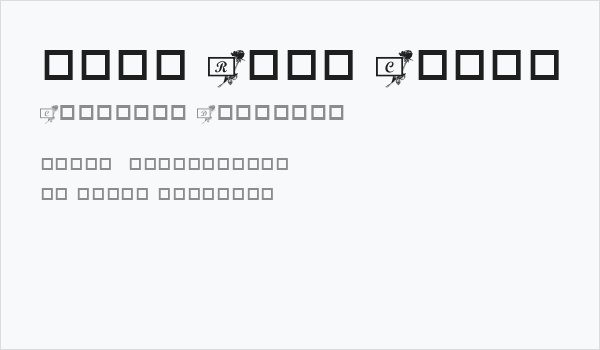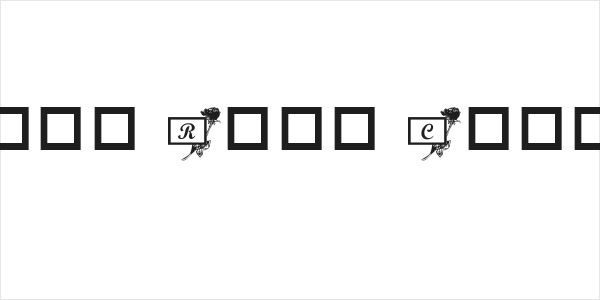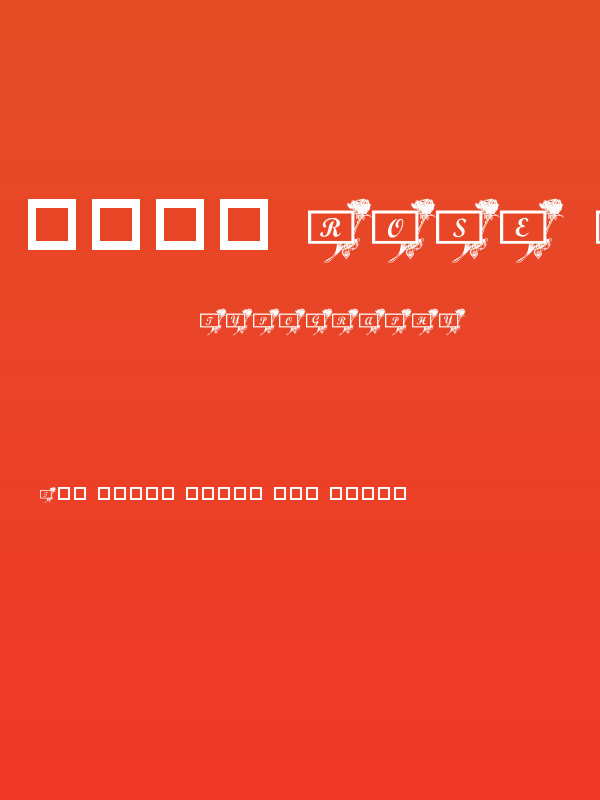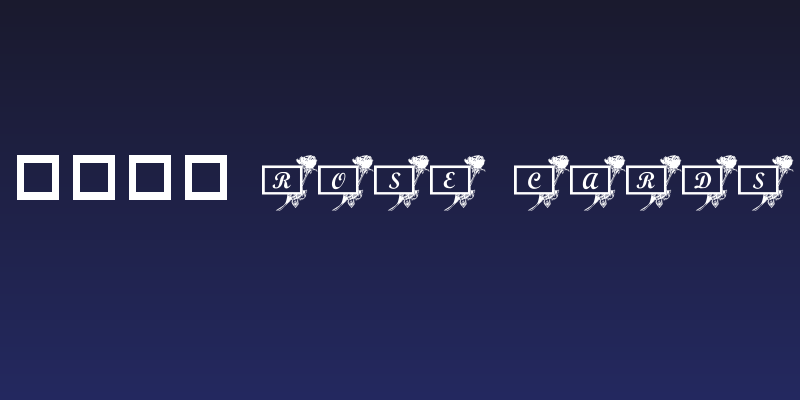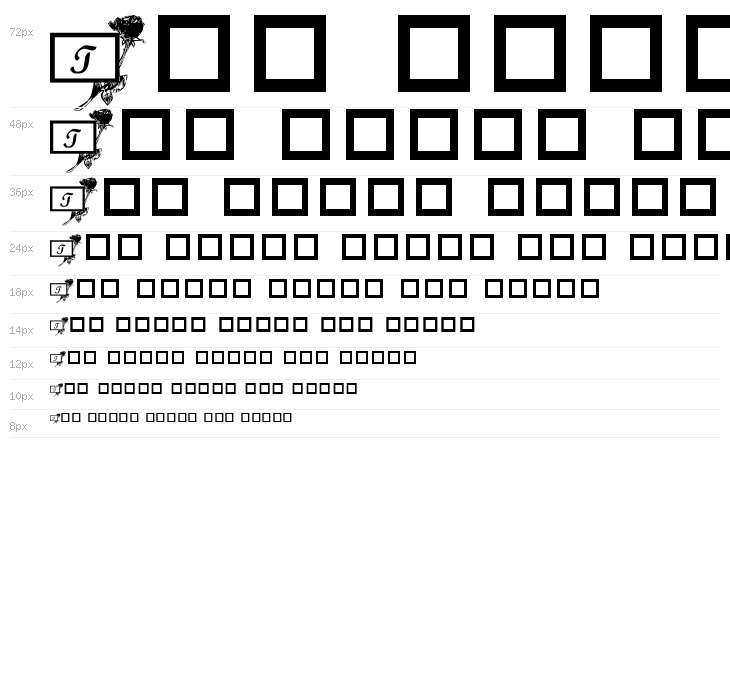
101! Rose Cards Font
| Stile generale | Vintage, Decorative |
| Caso d'uso | Headlines, Logos, Invitations |
| Progetti proposti | Ideal for wedding invitations, romantic greeting cards, vintage-themed posters, and decorative branding materials. |